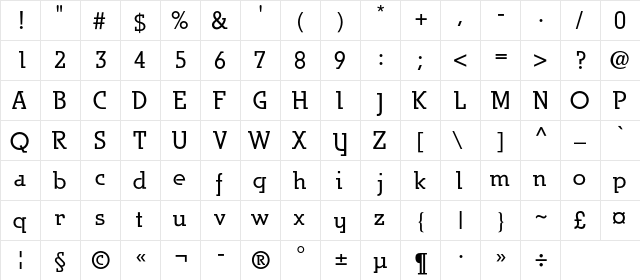
JargonAC Regular
Design Context for JargonAC Typeface
JargonAC offers clean, dependable letterforms without strong stylistic allegiance, making it a practical choice for designers who need flexibility.